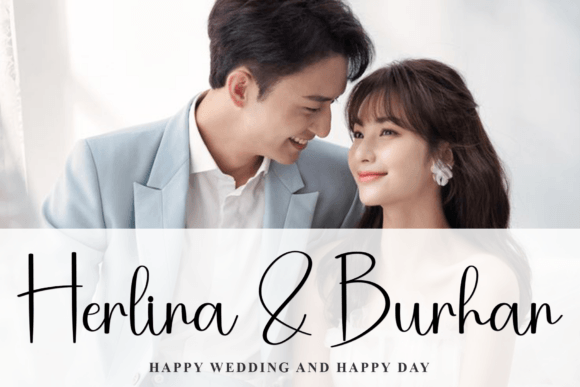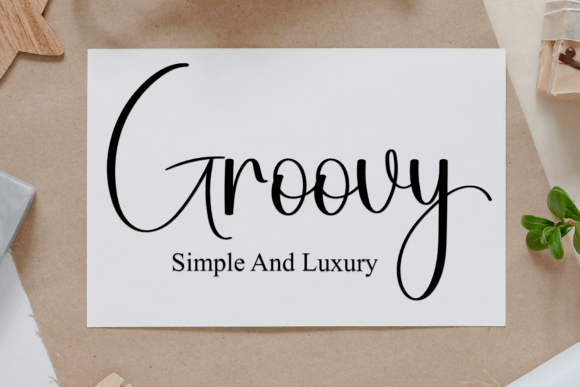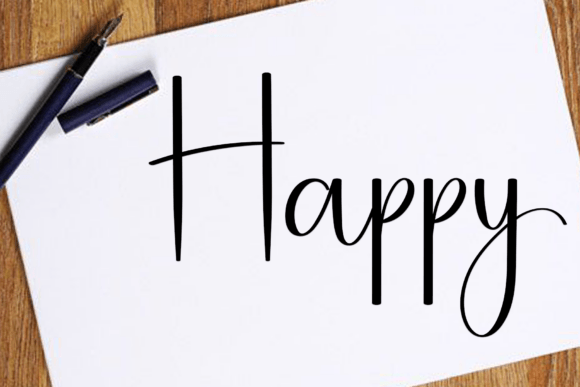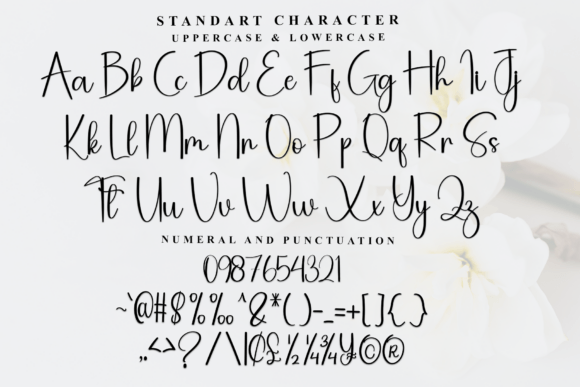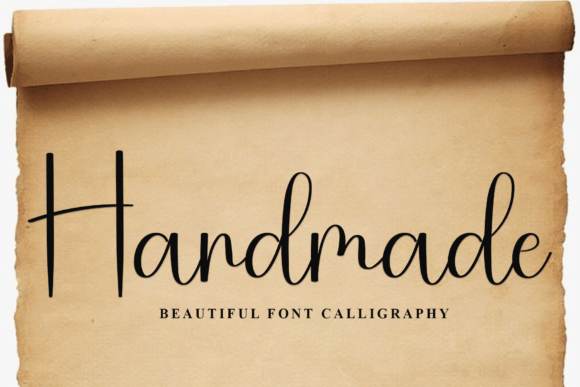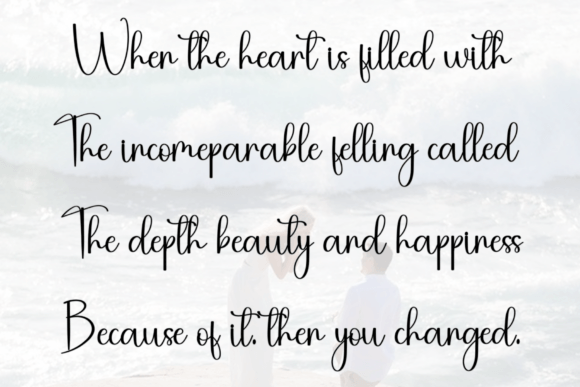
Introducing Bluberry Font: A Timeless Handwritten Delight
Are you on the hunt for a font that can elevate your designs and make them truly unforgettable? Look no further than Bluberry Font, a lovely and timeless handwritten font that’s perfect for creating eye-catching logos, branding, and quotes. With its unique and beautiful touch, Bluberry Font is sure to bring your designs to life!
The Characteristics of Bluberry Font
So, what makes Bluberry Font so special? For starters, it’s a handwritten font that’s been carefully crafted to exude a sense of warmth and personality. Every letter has a unique and beautiful touch, which gives it a distinctly human feel that’s hard to replicate with more traditional fonts. Whether you’re looking to create a logo, a brand identity, or simply want to add some flair to your typography, Bluberry Font is an excellent choice.
The Benefits of Using Bluberry Font
There are many benefits to using Bluberry Font in your designs. Here are just a few:
- Ease of use: Bluberry Font is PUA encoded, which means you can access all of the amazing glyphs and ligatures with ease. This makes it simple to incorporate into your designs, even if you’re not a seasoned typography expert.
- Versatility: Bluberry Font is incredibly versatile, making it suitable for a wide range of design applications. Whether you’re creating a logo, a brochure, or a social media graphic, Bluberry Font is sure to make a lasting impression.
- Uniqueness: With its unique and beautiful touch, Bluberry Font is sure to help your designs stand out from the crowd. In a world where so many designs look similar, Bluberry Font offers a refreshing alternative.
How to Use Bluberry Font in Your Designs
Using Bluberry Font in your designs is easy. Here are a few tips to get you started:
- Pair it with other fonts: Bluberry Font pairs beautifully with other fonts, making it easy to create stunning typography combinations. Try pairing it with a clean sans-serif font for a bold and modern look.
- Experiment with colors: Bluberry Font looks amazing in a range of colors, from bold and bright to soft and pastel. Don’t be afraid to experiment and find the perfect color to match your brand.
- Use it for headlines and titles: Bluberry Font is perfect for headlines and titles, where its unique and beautiful touch can really shine. Try using it to add some flair to your blog posts, social media graphics, and more.
Why Designers and Crafters Love Bluberry Font
Bluberry Font has quickly become a favorite among designers and crafters, and it’s easy to see why. Here are just a few reasons why:
- Timeless appeal: Bluberry Font has a timeless appeal that never goes out of style. Whether you’re creating a design for a client or working on a personal project, Bluberry Font is sure to remain relevant for years to come.
- Emotional connection: Bluberry Font has a way of evoking emotions and creating a connection with the viewer. Whether you’re looking to create a sense of warmth, comfort, or excitement, Bluberry Font is sure to help.
- Ease of use: As mentioned earlier, Bluberry Font is incredibly easy to use, even for those who are new to typography. This makes it accessible to designers and crafters of all skill levels.